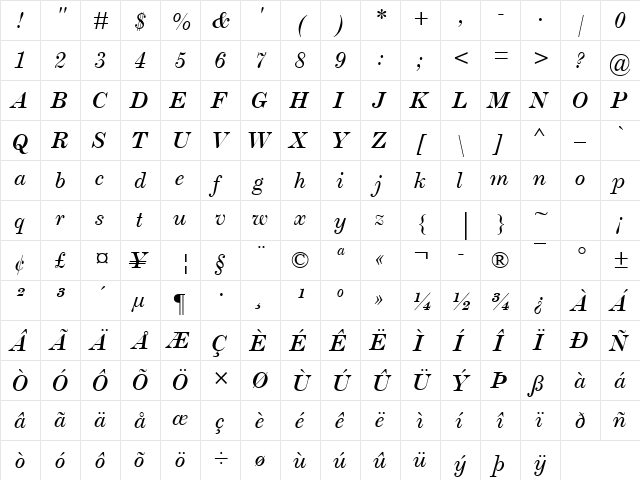
Scotch Roman MT Italic
Design Context for Scotch Roman MT Typeface
Scotch Roman MT is a composed and adaptable typeface that performs quietly and consistently across a wide range of design contexts. The slanted form adds forward momentum and visual energy.
Pro Tip: Try Scotch Roman MT for annotation and caption copy alongside an upright companion — the contrast in angle creates a dynamic but ordered typographic system.